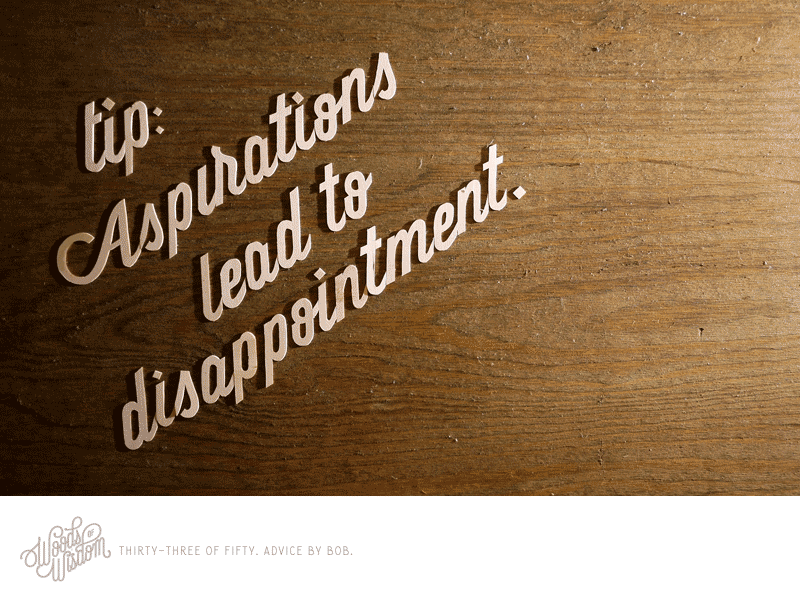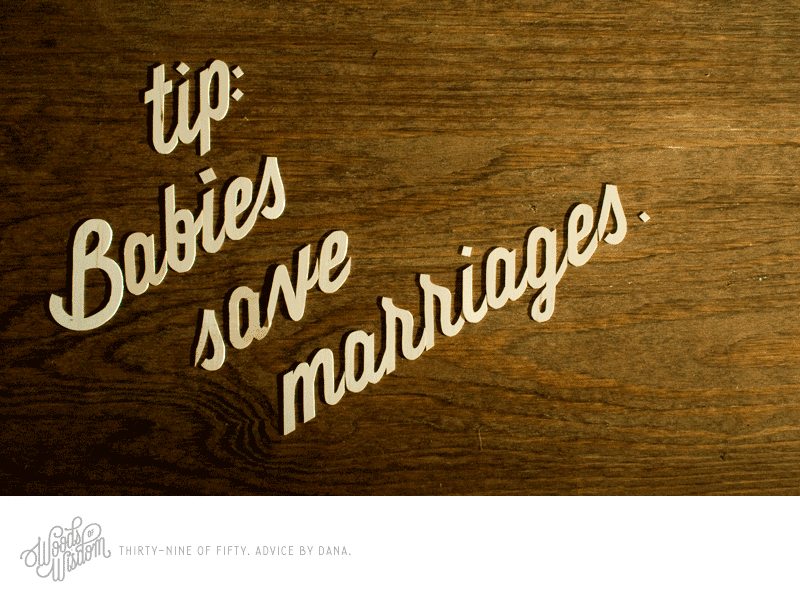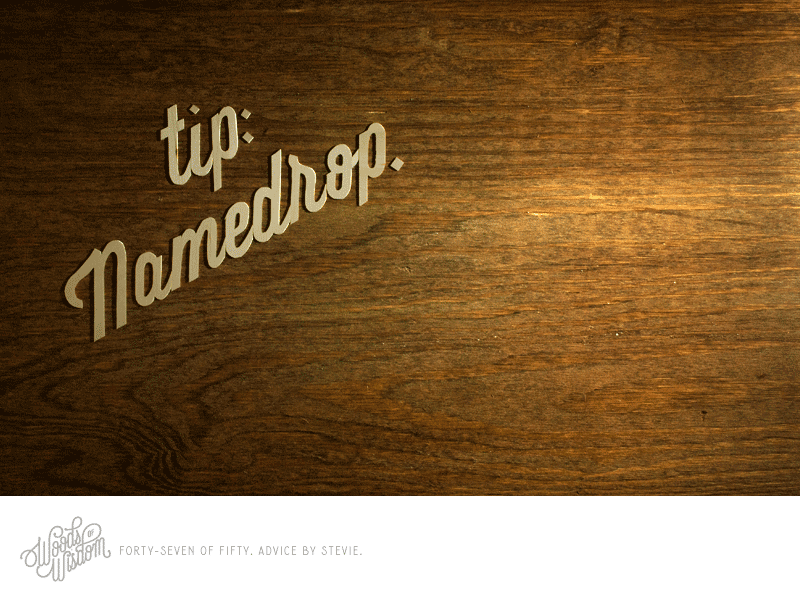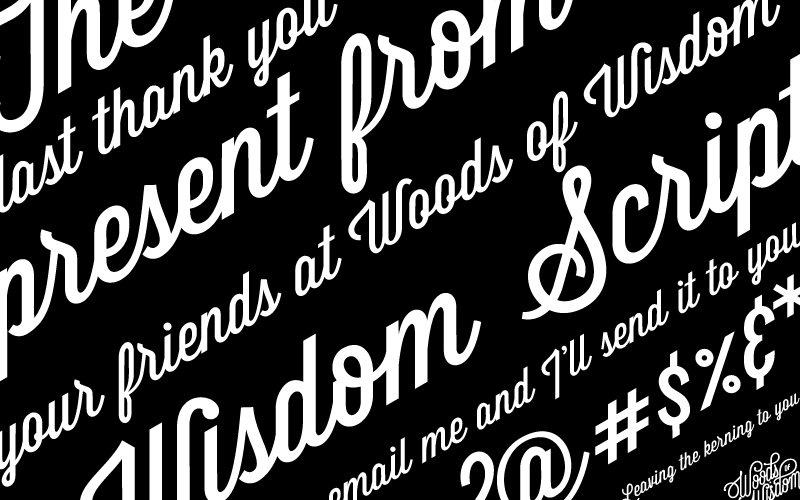
Wisdom Script
A Script Font
Wisdom Script was originally designed for Woods of Wisdom, a 50 part poster series on bad advice.
Designed by James T. Edmondson